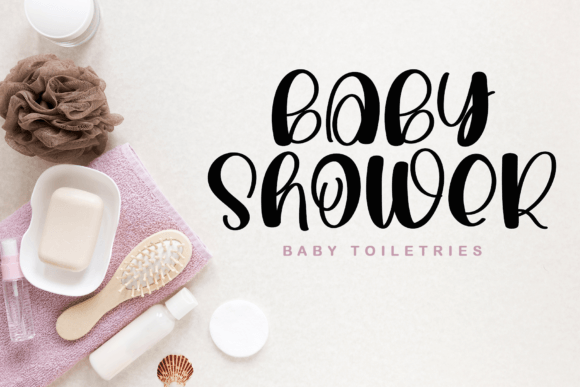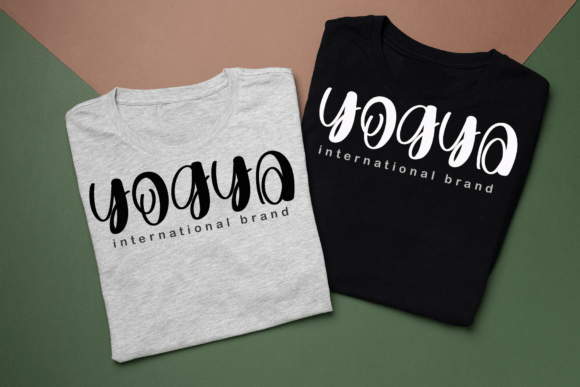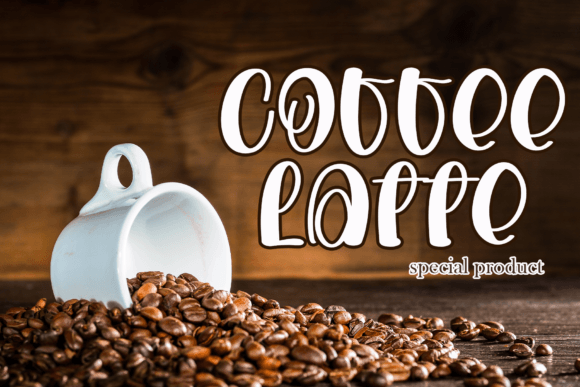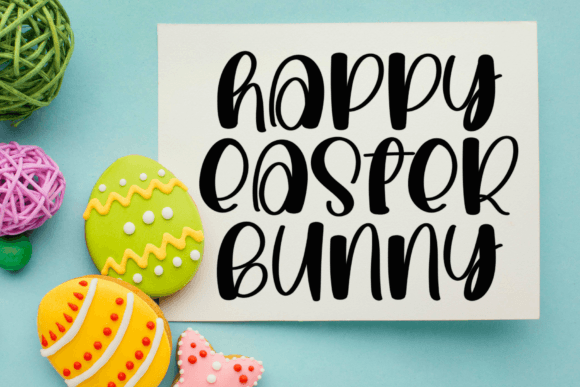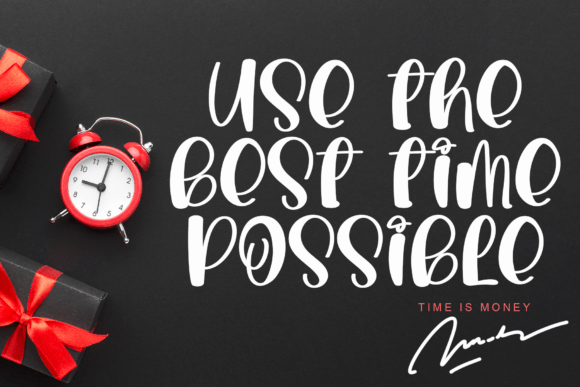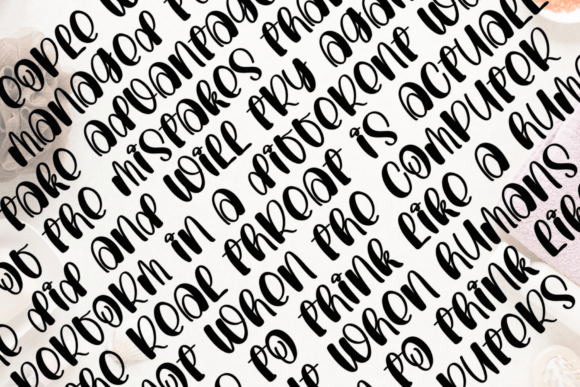
Baby Love Font: Elevate Your Designs with Timeless Elegance
In the world of typography, few fonts capture the essence of classic calligraphy while infusing a modern twist. Baby Love Font is one such gem that has been making waves among designers and crafters alike. This stylish handwritten font boasts a contemporary atmosphere, impeccable form, and a balanced, varied aesthetic, making it the perfect addition to enhance the beauty of your projects.
The Inspiration Behind Baby Love Font
Baby Love Font draws its inspiration from timeless classic calligraphy, a style that has been revered for centuries for its elegance and sophistication. The font’s creator aimed to capture the essence of traditional calligraphy while injecting a modern vibe, making it suitable for a wide range of design applications. The result is a font that exudes warmth, friendliness, and a touch of nostalgia.
Key Features of Baby Love Font
- Stylish Handwritten Design: Baby Love Font features a beautiful, handwritten design that adds a personal touch to any project. Its elegant strokes and curves make it perfect for designs that require a touch of sophistication.
- Contemporary Atmosphere: Unlike traditional calligraphy fonts, Baby Love Font has a contemporary atmosphere that makes it suitable for modern designs. Its clean lines and balanced aesthetic ensure that it complements a wide range of design styles.
- Impeccable Form: The font’s impeccable form is a testament to its high-quality design. Each letter is carefully crafted to ensure that it is legible, yet stylish.
- Balanced and Varied: Baby Love Font is designed to be balanced and varied, making it perfect for use in a variety of design applications, from headings and titles to body text.
Uses of Baby Love Font
Baby Love Font is a versatile font that can be used in a wide range of design applications, including:
- Branding and Logo Design: The font’s elegant design makes it perfect for use in branding and logo design. Its stylish appearance ensures that your brand stands out from the crowd.
- Wedding and Event Design: Baby Love Font is a popular choice for wedding and event design, thanks to its romantic and elegant appearance.
- Packaging Design: The font’s clean lines and balanced aesthetic make it suitable for use in packaging design, adding a touch of sophistication to your products.
- Digital Design: Baby Love Font is also perfect for use in digital design, including website headers, social media graphics, and more.
Why Designers and Crafters Love Baby Love Font
Designers and crafters love Baby Love Font for its unique blend of classic elegance and modern sophistication. Here are a few reasons why:
- Easy to Read: The font’s clear and legible design makes it easy to read, even at small sizes.
- Highly Versatile: Baby Love Font can be used in a wide range of design applications, making it a valuable addition to any designer’s toolkit.
- Unique and Distinctive: The font’s stylish appearance ensures that your designs stand out from the crowd, making it perfect for designers who want to create unique and memorable designs.
In conclusion, Baby Love Font is a stylish and versatile font that is perfect for designers and crafters looking to add a touch of elegance and sophistication to their projects. Its unique blend of classic calligraphy and modern sophistication makes it a valuable addition to any designer’s toolkit. Whether you’re working on a branding project, wedding design, or packaging design, Baby Love Font is sure to impress.